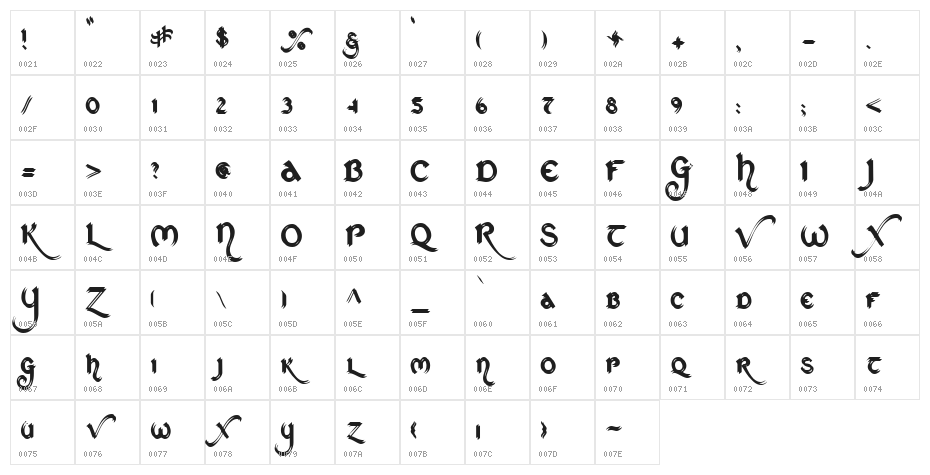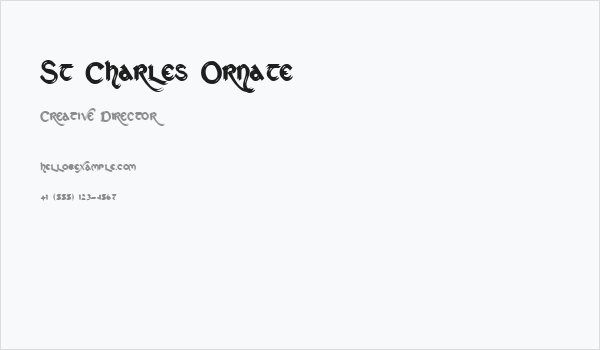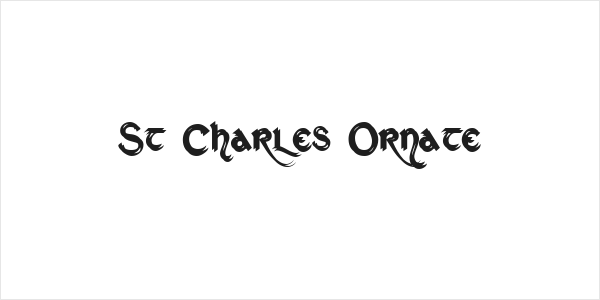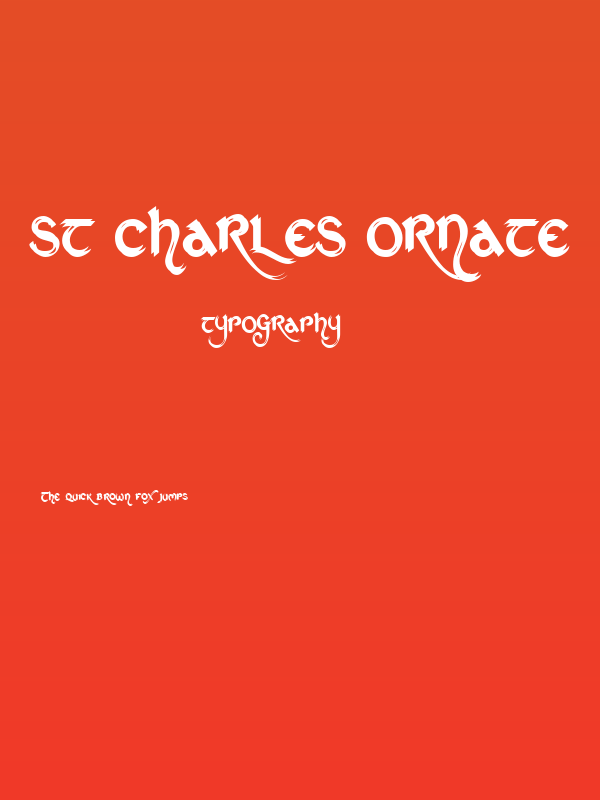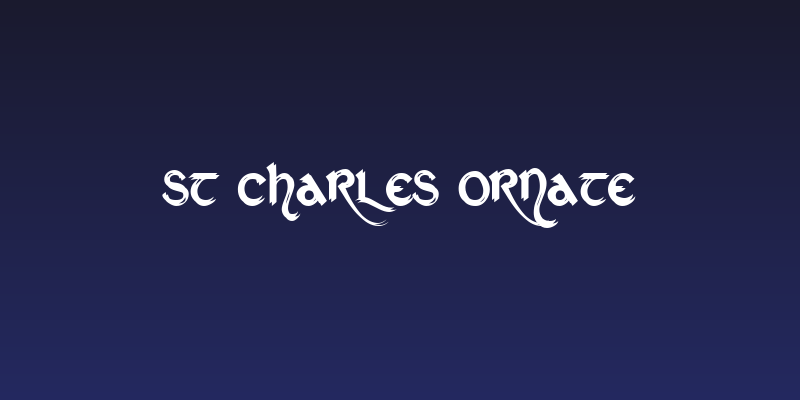
St Charles Ornate Font
St Charles Ornate Description
This font features an ornate and decorative style, characterized by intricate details and flourishes that give it a dramatic and elegant appearance. The uppercase letters are bold and striking, with sharp edges and elaborate curves that create a sense of movement and flair. The lowercase letters maintain the same level of detail, ensuring consistency throughout the typeface. Numbers and special characters are designed with the same ornate style, making them suitable for decorative purposes. The font's overall aesthetic is reminiscent of historical or medieval scripts, making it ideal for projects that require a touch of sophistication and grandeur.
| Proposed Projects | Ideal for wedding invitations, historical themed designs, book covers, and luxury branding. |